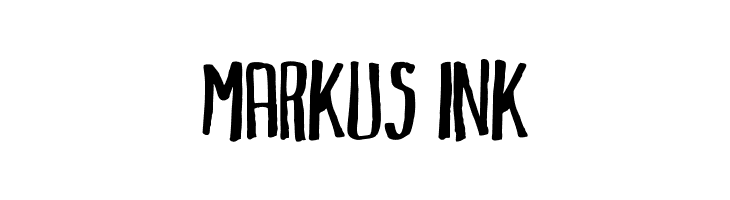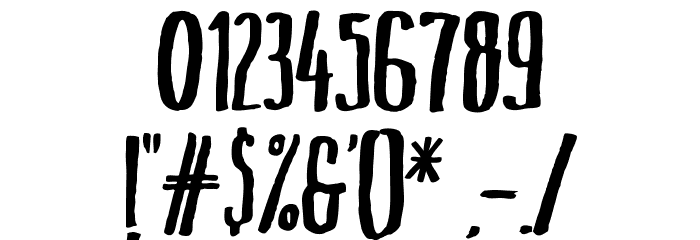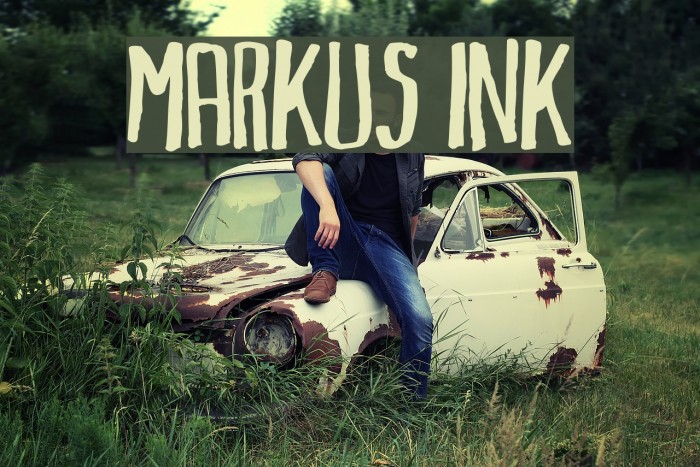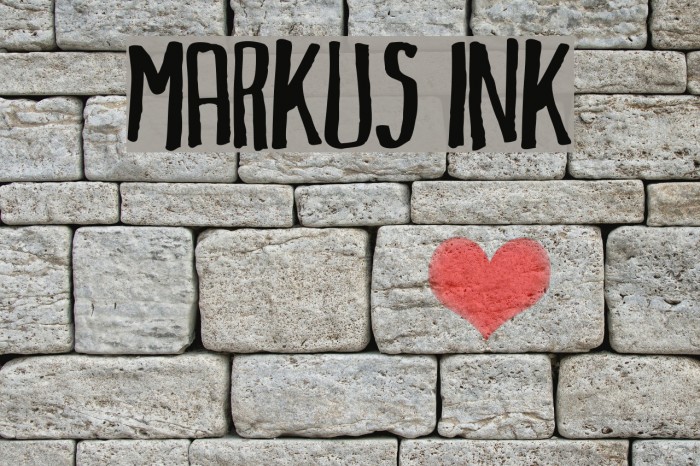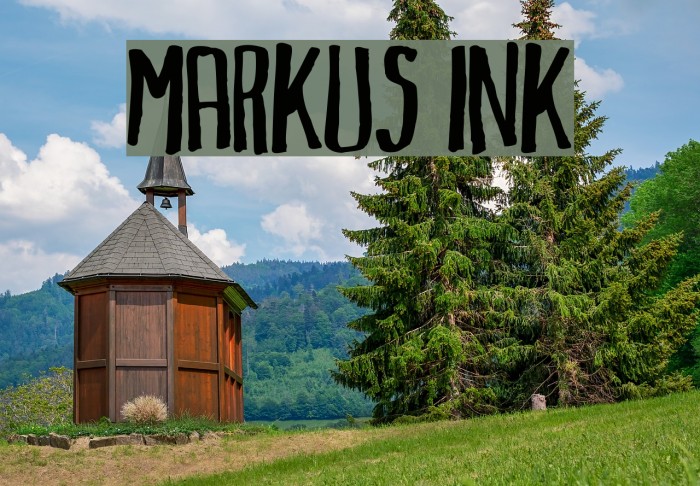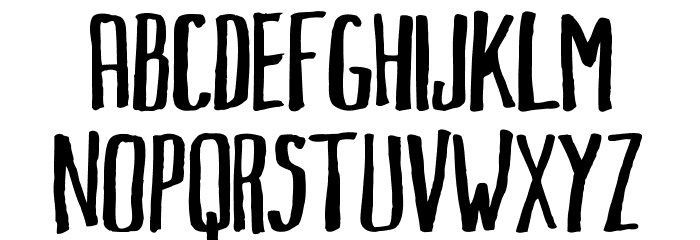
Markus Ink Font
Markus Ink Description
This font features a bold and expressive style with a hand-drawn appearance. The characters are tall and slightly narrow, with uneven strokes that give a sense of movement and energy. The uppercase letters are particularly striking, with a playful yet assertive presence. The lowercase letters maintain the same dynamic quality, ensuring consistency across the typeface. Numbers and special characters are designed with the same attention to detail, making them suitable for various creative applications. The overall look is both artistic and impactful, perfect for projects that require a personal touch.
A bold, hand-drawn font with expressive, dynamic strokes from Uncategorized fonts.